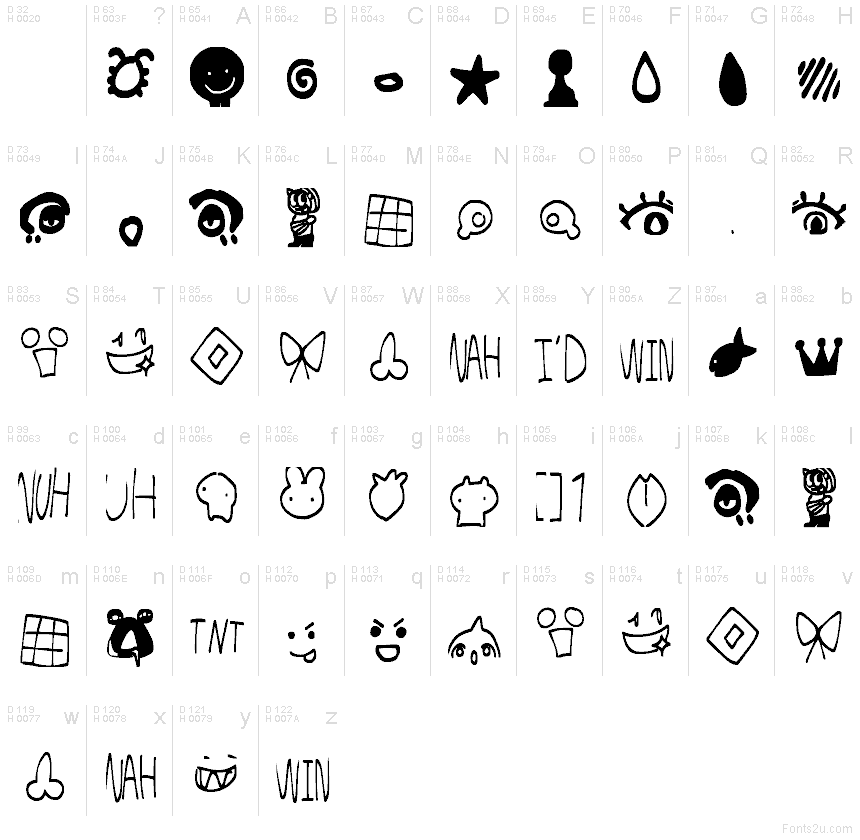
Rahhh font by Jessi Tinitong is a free dingbats typeface. When you need quick, hand-drawn icons that feel alive, these inky blobs deliver-smiley faces, squiggles, a star, a droplet, and playful shapes with soft, scuffed edges. The forms have a bouncy rhythm and a stamped, slightly messy texture that instantly warms up clean layouts without feeling childish.
Using Rahhh, you can add punchy accents to social stickers, kids’ event posters, classroom printables, zines, packaging badges, and casual brand moodboards. This free font works beautifully as spot graphics sprinkled between lines or clustered as a motif. Keep Rahhh big and clear, and pair it with a simple rounded sans to let the doodles carry the vibe.